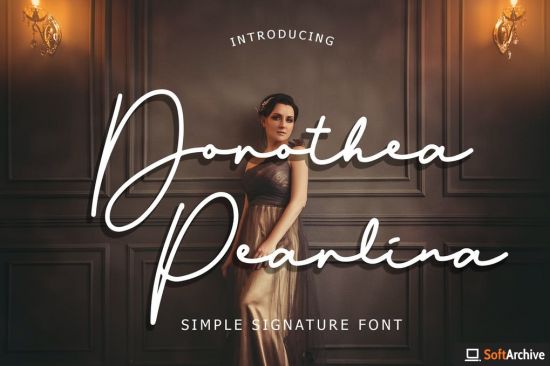
DesignOptimal - Dorothea Pearlina Simple Signature Font
DesignOptimal.com - Dorothea Pearlina Simple Signature Font
Dorothea Pearline is signature script font with monoline style. Fall in love with its elegantly playful nature!